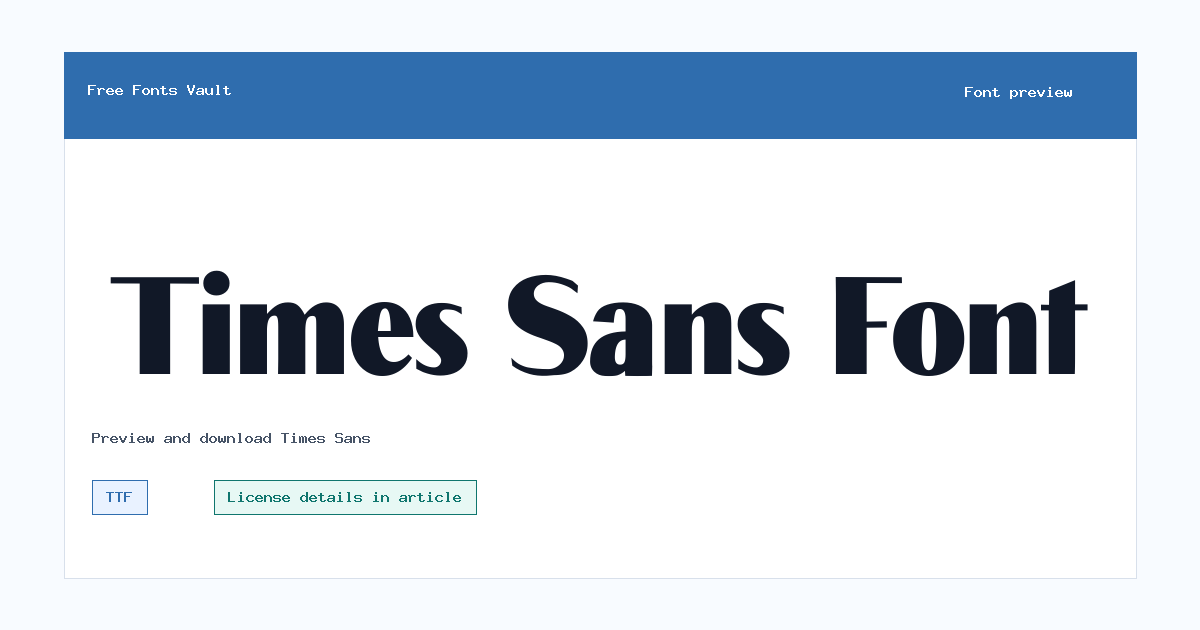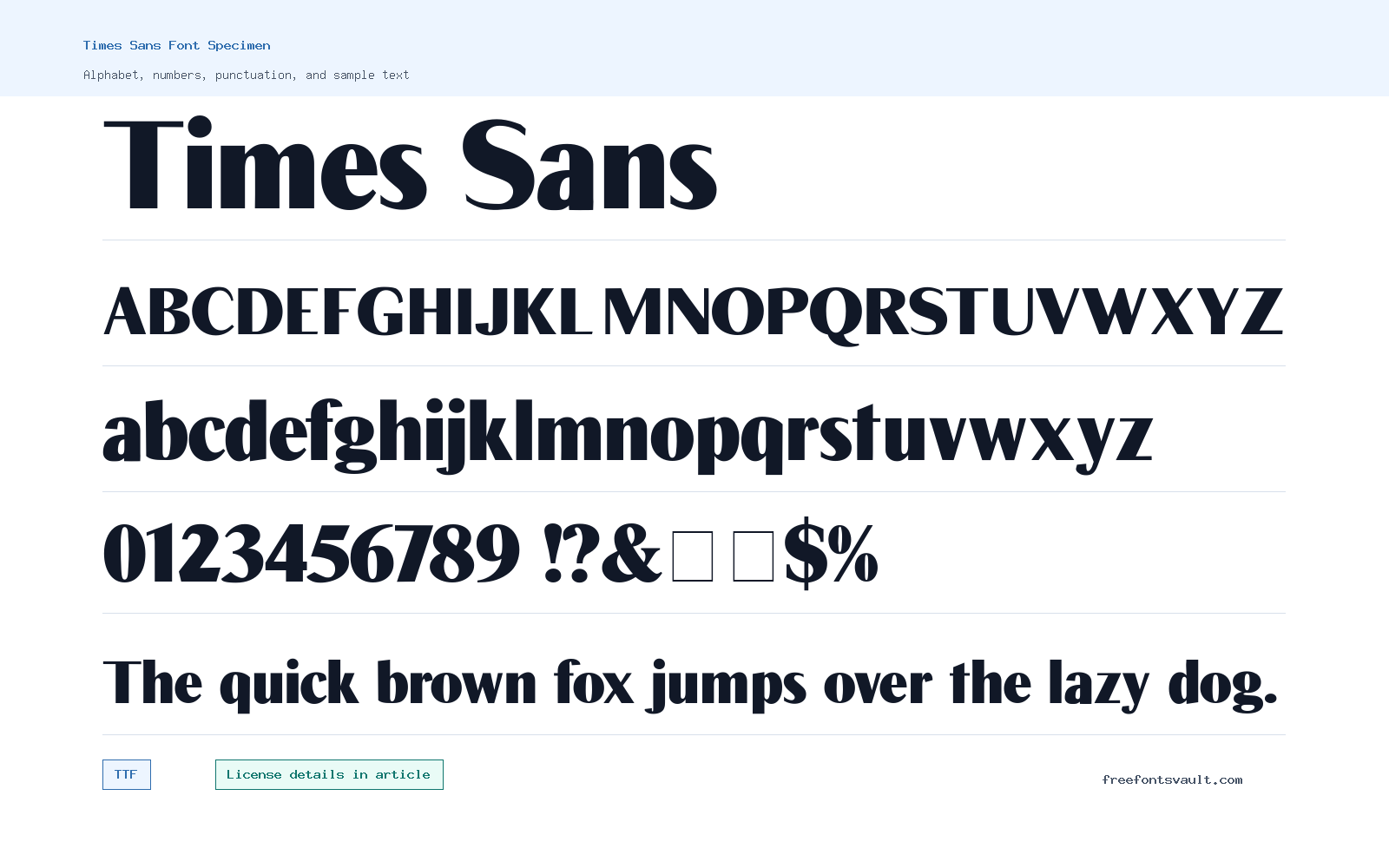
Times Sans
- Designer c 2017 by KyooshiFonts
Times Sans is a clean sans serif font with a straightforward regular style, suited to visitors who want a simple typeface for previewing short text, titles, and layout tests.
About Times Sans
Times Sans comes as a regular-weight TTF font file. Its name may suggest a connection to familiar newspaper or serif naming traditions, but the font file here is presented as Times Sans, a separate downloadable typeface. The design is best treated as a simple sans serif option for users who want clear letterforms without heavy decoration. Because the available style is normal weight 400, it works most naturally in places where a single, balanced weight is enough: headings, labels, short paragraphs, quote graphics, menu text, and simple digital mockups.
Use the preview box to test the words you actually plan to set, especially if your project includes names, numbers, punctuation, or mixed uppercase and lowercase text. A regular sans serif can look very different in a logo-sized wordmark than it does in a sentence, so check spacing, readability, and how the shapes behave at small sizes. For longer reading text, compare it with a dedicated body font before using it across a full article or document. For display use, try pairing it with a warmer serif, a neutral text face, or a restrained script accent, but keep the layout simple so the lettering stays easy to read.
- Regular 400 style for clean, everyday sans serif typography
- Simple letterforms that are easy to test in headings, labels, and short text
- Useful for previewing names, quotes, titles, and small layout samples
- Single-style family, so weight matching should be handled with care
- Headings and short title lines
- Poster, flyer, and social graphic mockups
- Simple labels, captions, and menu text
- Personal layout tests and font previews
- Clean typographic experiments where one regular weight is enough
What type of font is Times Sans?
Times Sans is presented here as a sans serif font in a regular 400 style. It is a practical choice for testing clean headings, labels, and short pieces of text.
Who designed Times Sans?
The designer field lists “c 2017 by KyooshiFonts.” No additional foundry or official website information is listed.
Does Times Sans include bold or italic styles?
Only one regular style is listed. If you need a full family with bold, italic, or multiple weights, check whether the creator offers more styles elsewhere or choose a larger font family.